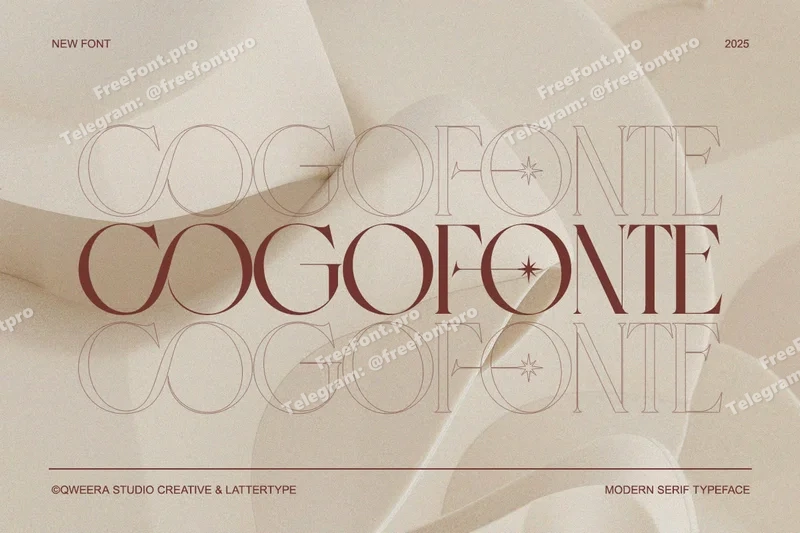
Cogofonte – Minimal Modern Decorative Serif Font
Cogofonte is a modern decorative serif typeface that blends timeless geometry with sophisticated modernism. It offers high contrast, distinct ligatures, and decorative details that make it perfect for editorial headlines, logo design, luxury packaging, and artistic branding. Every letter is crafted to deliver balance, style, and visual harmony.
Regular & Italic
Decorative Alternates & Ligatures
High-Contrast & Geometric Forms
Perfect For: Branding identity, packaging, poster design, fashion magazines, and luxury logo systems.